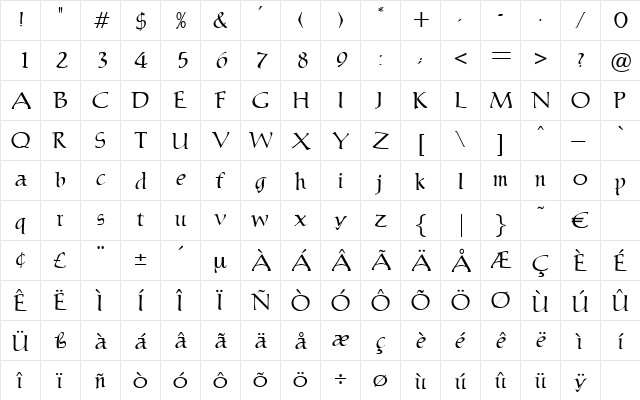
Caesar Regular
Design Context for Caesar Typeface
Caesar takes a measured approach to typography — its balanced proportions and neutral character make it a reliable workhorse for both digital and print work.
Pro Tip: Use Caesar in both headline and body roles to test its range before committing to a single application.